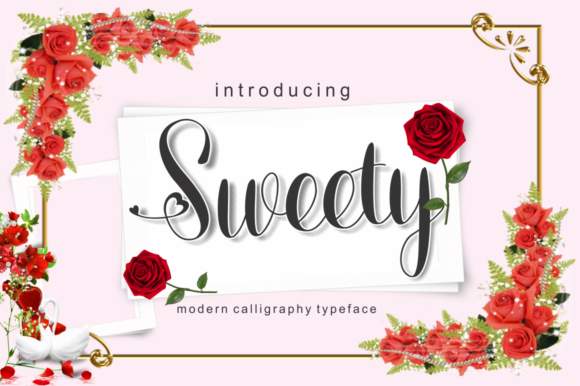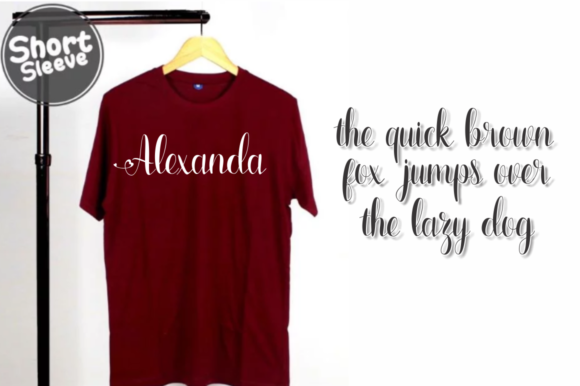
About Sweety Font
Sweety is a font that exudes delicacy, elegance, and flow, making it a perfect choice for a wide range of design projects. Its handwritten style enhances your creations, adding a touch of sophistication and grace that captivates the eye.
With its delicate and flowing essence, Sweety brings a sense of beauty and charm to your designs. Whether you’re working on wedding invitations, thank you cards, quotes, greeting cards, logos, business cards, or any other project, this font elevates each creation with its exquisite allure.
Sweety’s well-balanced characters add a personal and unique touch to your designs, making them feel refined and special. It’s like a brush of creativity that infuses your creative ideas with a sense of elegance.
Incorporating Sweety into your designs allows you to explore a wide range of creative possibilities. Its adaptability serves as a canvas for your imagination, empowering you to create visually stunning and captivating designs.
The beauty of Sweety lies in its ability to enhance any project with a handwritten touch. Whether it’s adding a touch of grace to wedding invitations or infusing sophistication into greeting cards, this font is the perfect choice.
Fall in love with Sweety’s delicate and elegant flow as it transforms your ideas into breathtaking designs that exude beauty and charm.
In summary, Sweety is more than just a font; it’s a delicate and elegant companion that enhances your creative ideas. Embrace its flow and notice how it adds a touch of magic to your projects. With Sweety, your designs become true expressions of beauty and authenticity, leaving a lasting impact on all who encounter them. Let Sweety be the font that brings a touch of sophistication to your designs, creating a world of timeless elegance and captivating the hearts of your audience.